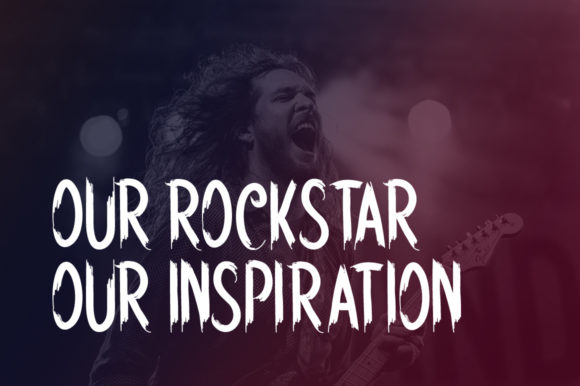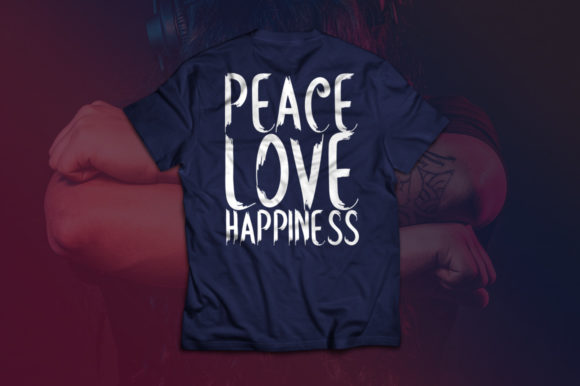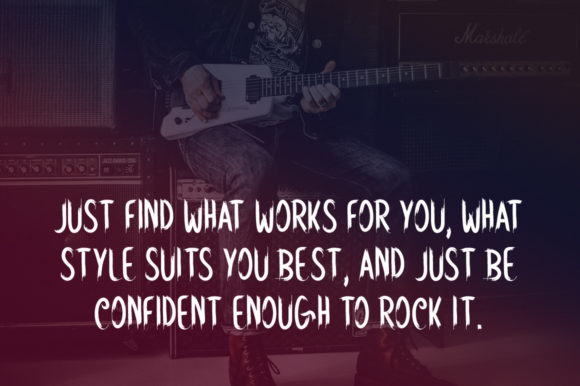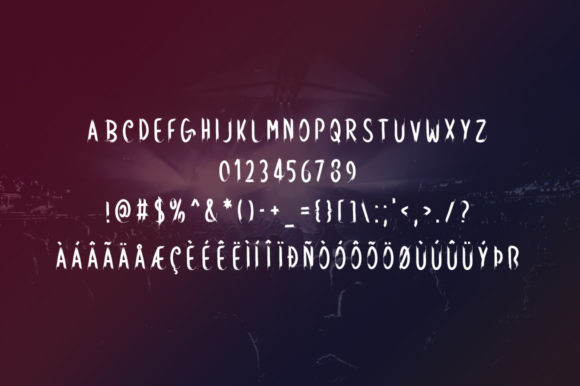
Introduction to Rockwork Font
Do you ever find yourself stuck in a creative rut, searching for that one perfect element to elevate your design project? You’re not alone. We’ve all been there – staring at a blank canvas, trying to conjure up the magic that will make our design stand out from the crowd. For designers, finding the right font can be a game-changer, and we’re excited to introduce you to the latest addition to your design arsenal: the Rockwork Font.
With its bold, brush-style strokes and unique charm, the Rockwork Font is the perfect addition to any creative project. Whether you’re working on a graphic design, a logo, or a social media post, this high-quality font is sure to add a touch of sophistication and style. And the best part? It’s available for free download, making it an invaluable resource for designers of all levels.
Key Features of Rockwork Font
- High-quality, professional font suitable for creative projects and designs.
- Unique, hand-crafted design elements and textures that add a touch of elegance to any creative project.
- Perfect for use in graphic design, digital art, and other creative endeavors where a high-quality font is essential.
Honest Review: Rockwork Font
I recently stumbled upon the Rockwork Font, and I must say it’s been a game-changer for my creative projects. This high-quality font has been a fantastic addition to my design resource collection.
- ✨ Unique aesthetic: The Rockwork Font has a rugged, earthy feel that adds a touch of personality to any design.
- ✨ Wide range of characters: The font includes a wide range of characters, including Latin and Cyrillic alphabets, making it suitable for a variety of creative projects.
- ⚠️ Limited customization: While the font itself is high-quality, there are limited options for customization, which may not be ideal for designers who like to get creative with their typography.
Overall, I’m really impressed with the Rockwork Font. It’s a fantastic addition to any designer’s toolkit, and its unique aesthetic makes it a great choice for creative projects. With a little bit of workarounds, I’m confident that designers will be able to get the most out of this fantastic design resource.
When using Rockwork Font, remember to keep your design simple and uncluttered to showcase the font’s unique characteristics. Common use cases for Rockwork Font include creating logos, business cards, and social media graphics. Experiment with different font sizes and styles to get the most out of this versatile design resource.